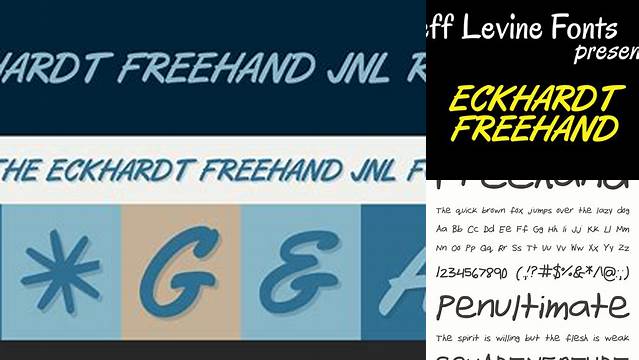
Eckhardt Freehand Font: The Ultimate Guide
Eckhardt Freehand Font is a unique and captivating typeface that brings a touch of authenticity and personal flair to any design project. In this comprehensive guide, we'll dive deep into the world of Eckhardt Freehand Font, exploring its origins, characteristics, and how you can effectively use it in your creative endeavors. So, guys, buckle up! We're about to embark on a journey that will transform your understanding of this incredible font. Eckhardt Freehand Font is not just a font; it's a statement, a way to inject personality and charm into your designs. We will explore every corner of this font to make sure that you understand this font.
Eckhardt Freehand Font: Origins and Inspiration
Let's start with the beginning, shall we? The Eckhardt Freehand Font, with its distinctive style, draws inspiration from the art of hand lettering. This is a type of fonts that are crafted by a professional artist. Unlike other fonts that are created by a program. Think about those elegant script fonts you see on wedding invitations or the bold, expressive lettering you find in vintage posters. The creators of the Eckhardt Freehand Font clearly aimed to capture that human touch, that essence of a skilled hand guiding a pen or brush. This font is designed to mimic the imperfections and subtleties that are inherently found in handmade typography. The goal is to create a sense of authenticity and approachability that is often missing in more rigid, digitally-perfected fonts. It's like adding a signature to your design, a personal stamp that says, "I made this with care." Eckhardt Freehand Font, in essence, is a digital embodiment of the free-flowing, artistic spirit of hand lettering. The goal of this font is to mimic the art of hand lettering in a digital world. When used correctly, this font can stand out from other fonts that are usually used in digital form.
The Craftsmanship Behind Eckhardt Freehand Font
Behind every great font lies a team of talented designers and typographers. The Eckhardt Freehand Font is no exception. The creators spent countless hours meticulously crafting each letter, ensuring that the overall design captured the essence of hand lettering. This is not just about creating a set of letters; it's about capturing a mood and personality. The designers focused on the weight of each stroke, the curves, and the spacing between letters to create an authentic and organic feel. Think of the way a calligrapher holds a pen and the pressure they apply to create thick and thin lines. They try to create a digital form of the hand lettering. The aim is to make a font that can stand out from the crowd. The font's design reflects the kind of attention to detail that would go into creating a custom piece of hand lettering. The attention to detail is what sets this font apart. They work tirelessly to create a font that is good for the consumers. The goal is to create a font that is natural and authentic.
Eckhardt Freehand Font's Aesthetic Appeal
One of the primary strengths of Eckhardt Freehand Font lies in its aesthetic appeal. The font has an inherently human touch, avoiding the cold, mechanical feel of many digital fonts. Its organic and free-flowing nature makes it ideal for a wide range of design projects where a personal and authentic feel is desired. Think about how the font can be used in invitations or posters. The font feels approachable and friendly. It can create a warm and inviting atmosphere. The uneven lines, the slight variations in the letterforms, and the overall artistic flair that defines this font can capture the eye. It draws the viewer in and makes them want to read more. The font helps designers to create an unforgettable impression, making designs stand out from the competition. The goal of the font is to create designs that are memorable and authentic.
Eckhardt Freehand Font: Key Characteristics and Features
The Eckhardt Freehand Font has a whole bunch of key characteristics. It's super important to understand what makes this font so special. The beauty of the Eckhardt Freehand Font is its handmade feel. It is what sets it apart from the other fonts. It is a font that is made with care. The fonts usually mimic the art of hand lettering. The result is a typeface that feels natural and authentic. The hand lettering style is not perfect, which is exactly what gives it its charm. The small imperfections, the subtle variations in stroke thickness, and the unique shape of each letter all add to its appeal. It's these features that make it a font that has a unique character. This makes the font very readable and enjoyable.
Versatility of Eckhardt Freehand Font
One of the key advantages of the Eckhardt Freehand Font is its versatility. It adapts well to various projects. Whether you're designing a logo, crafting a website header, or creating marketing materials, this font can adapt to your needs. It can be used to convey different messages depending on how it's used. Its ability to blend in different projects is what makes it such a great font. You can pair it with more formal typefaces for a touch of contrast or use it in a more casual context. Its versatility makes it a good choice for a variety of projects. The font's adaptable nature means that designers can use it in a number of contexts. It adapts well to different design needs. Eckhardt Freehand Font is a good choice for you.
Legibility and Readability of Eckhardt Freehand Font
Despite its artistic nature, the Eckhardt Freehand Font prioritizes legibility. This is an important factor for any font. Legibility is an important key in the design world. The creators understand that this is one of the most important factors in making a font. The designers have carefully crafted each letter to ensure that it is easily recognizable and readable. This is what sets it apart from other freehand fonts. The goal is to make sure that the font can be read. The spacing between letters and words is optimized to enhance readability. The aim is to make a font that is pleasing to the eye. They make sure that the lines are not too thick or thin. Eckhardt Freehand Font is designed to make sure that everything is visible. This makes it useful for both headlines and body text. The font is good for conveying information, not just for making things look pretty. It's both attractive and functional. This is the best balance that the designers have ever made.
Eckhardt Freehand Font: Best Uses and Applications
Now, let's get to the fun part! Where does Eckhardt Freehand Font really shine? Eckhardt Freehand Font is super versatile, meaning you can use it in a ton of different projects. It's ideal for projects where you want to bring a personal touch to your design. Here are some of the best applications.
Eckhardt Freehand Font for Branding and Logos
Creating a brand identity? The Eckhardt Freehand Font is perfect for logos and branding materials. Its unique and handcrafted feel helps to create a memorable brand presence. It helps your brand stand out from the competition. The font brings an authentic feel to your brand. It makes your brand feel more personable. The imperfections of this font make it a great choice for brands looking to project authenticity. Brands can use this font to connect with their audience. It’s a way to show that you care about the details, that you're not just another faceless corporation. It will help you to show your brand's story. The fonts create a lasting impression.
Eckhardt Freehand Font for Print Design
Print design is a great place to use the Eckhardt Freehand Font. It is ideal for things like invitations, posters, and brochures. It is designed to capture attention. The font brings a creative flair. You can pair it with other fonts to make it stand out. When you use this font for print design, it becomes a key element of your design. The goal is to make a design that attracts the viewer. Use it to create wedding invitations or birthday cards. The font can add a touch of elegance and charm. The font can make your design more inviting. The imperfections of this font will show that the design is handmade.
Eckhardt Freehand Font: Conclusion and Final Thoughts
We've explored the world of Eckhardt Freehand Font, from its origins to its applications. This font is amazing! It can bring life to any design. It's super versatile. It's a good font for logos, branding, and web design. The font's unique characteristics make it great for a variety of projects. Embrace the human touch, and let your designs come to life. Remember, guys, happy designing!